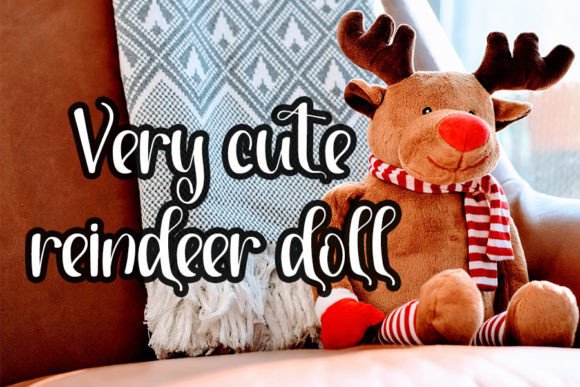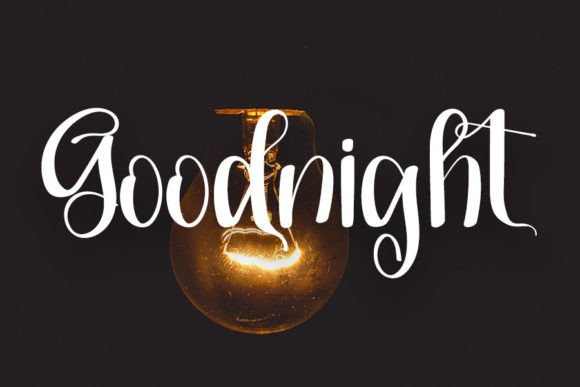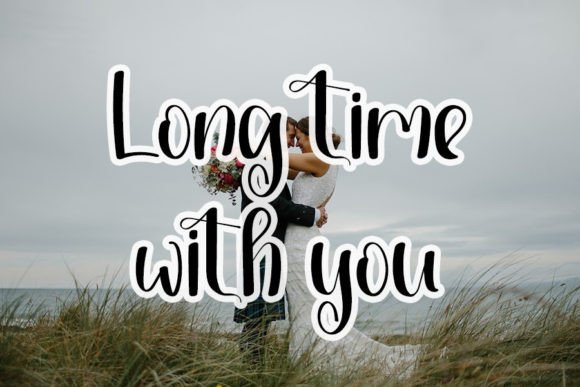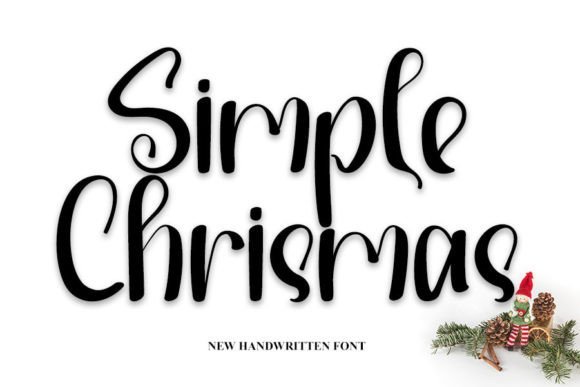
Introduction to Simple Chrismas Font
Simple Chrismas is a neat and beautiful handwritten font described by an elegant touch, perfect for your favorite projects.
Fall in love with its incredibly distinct and timeless style, and use it to create spectacular designs .
Why Choose Simple Chrismas Font?
Simple Chrismas Font offers exceptional quality and versatility, making it a valuable addition to your design toolkit. Whether you’re creating for personal projects or commercial use, Simple Chrismas Font delivers professional results.